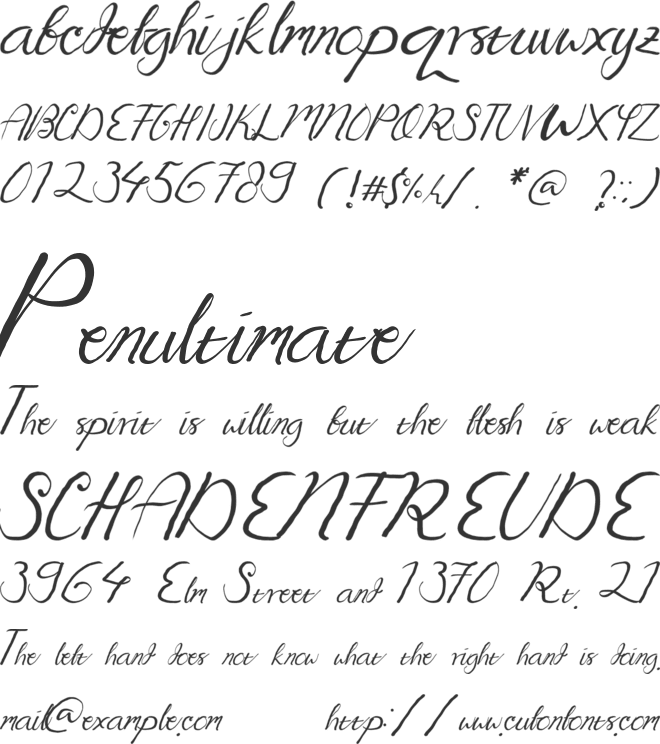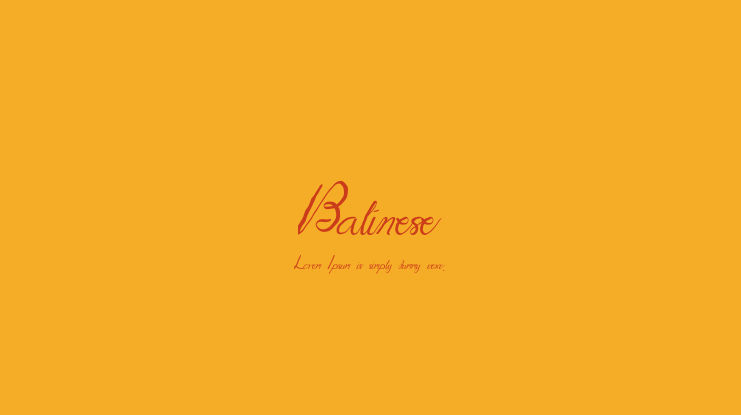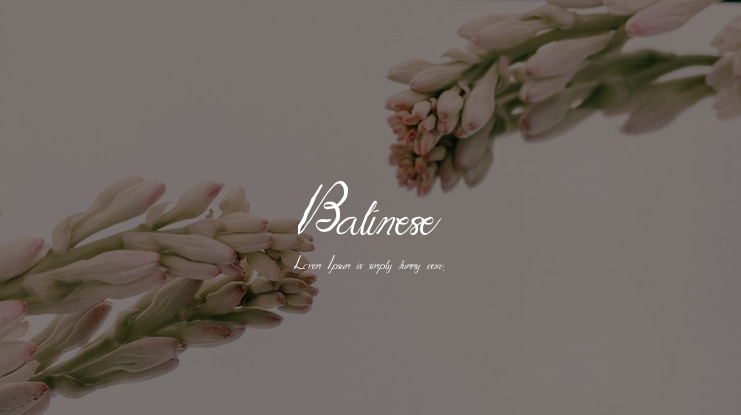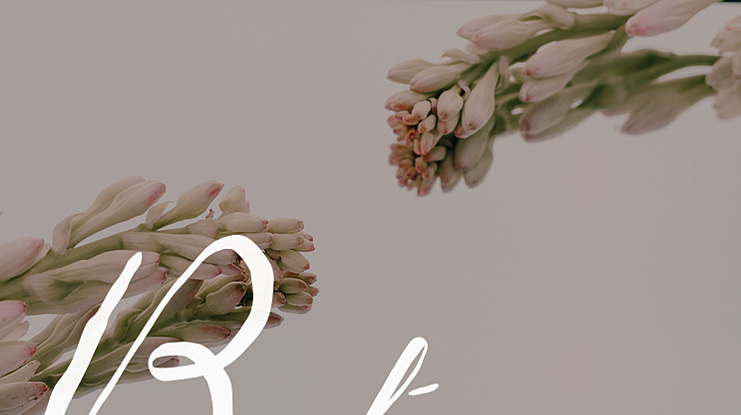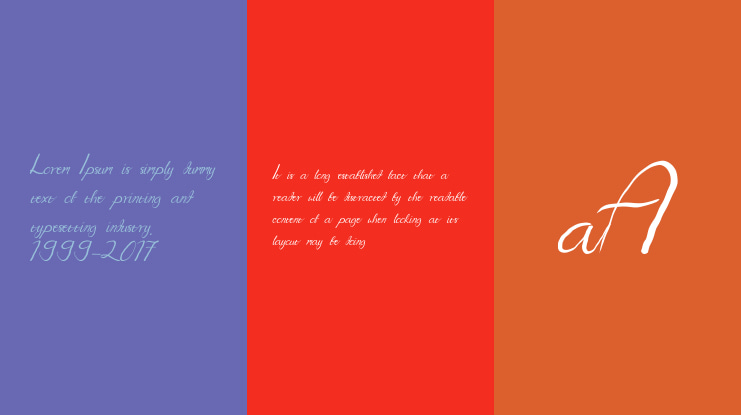
Balinese Font
Balinese is a stylish and incredibly elegant script font. It looks stunning on wedding invitations, thank you cards, quotes, greeting cards, logos, business cards and every other design which needs a romantic touch.